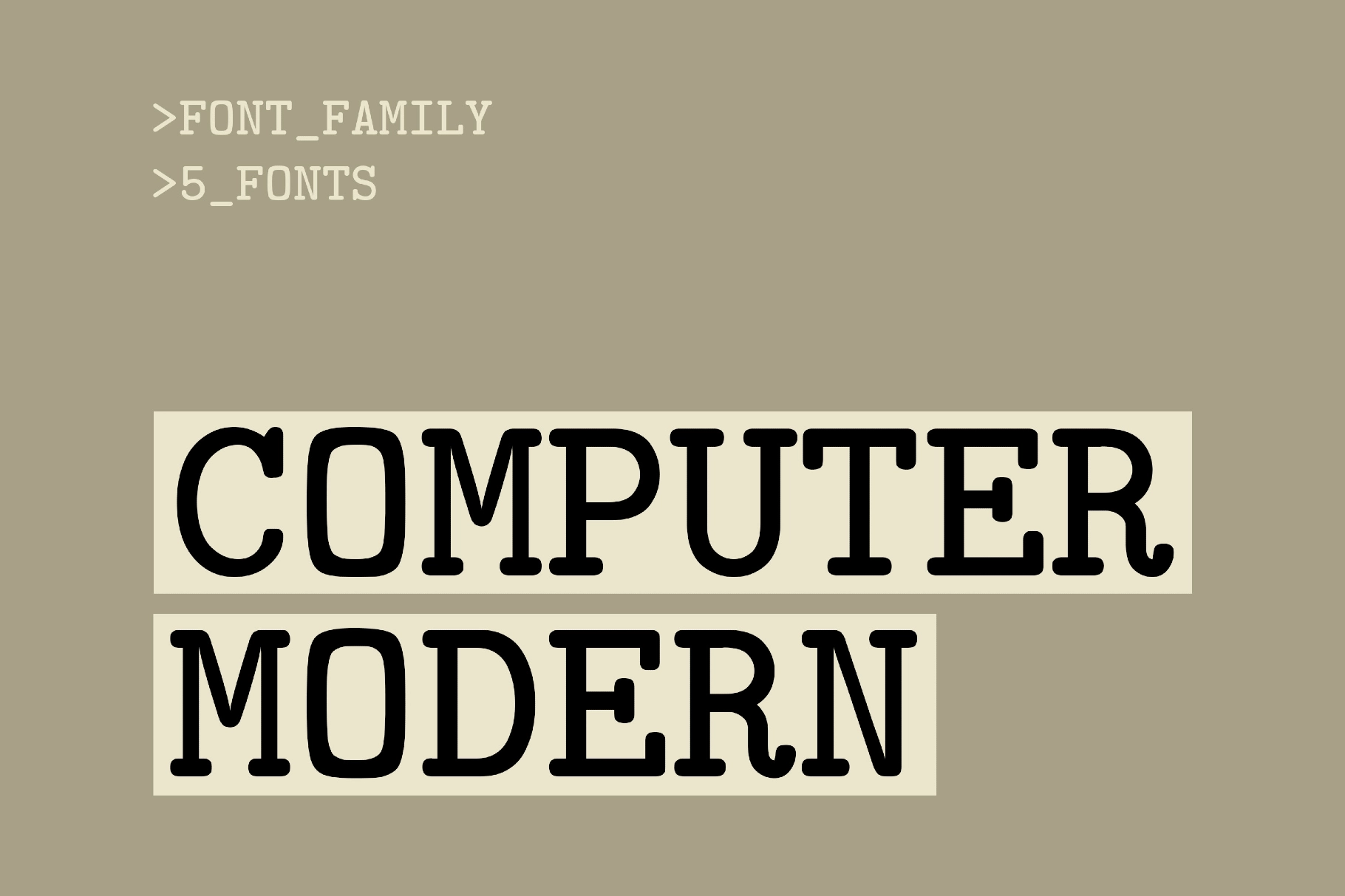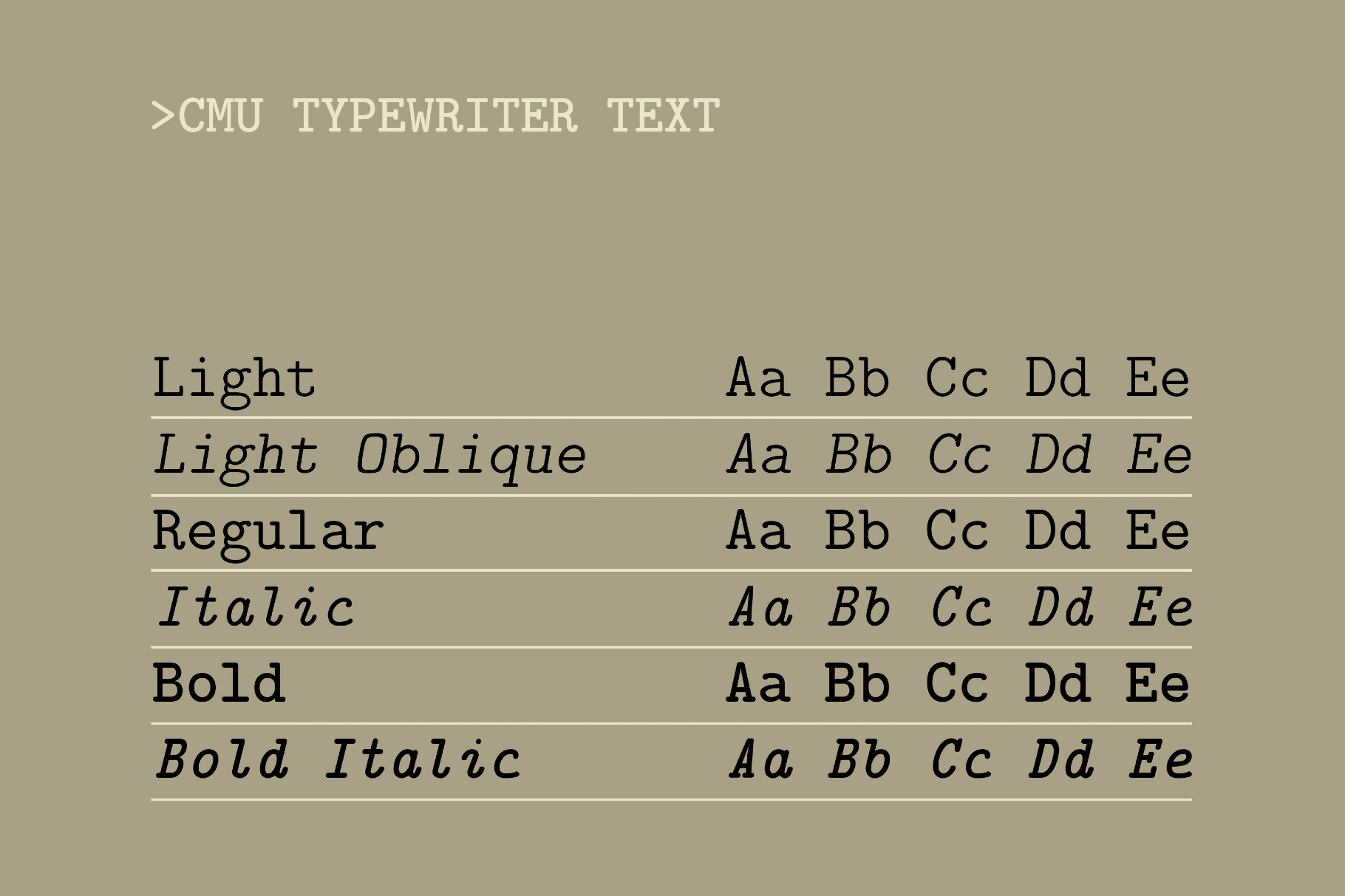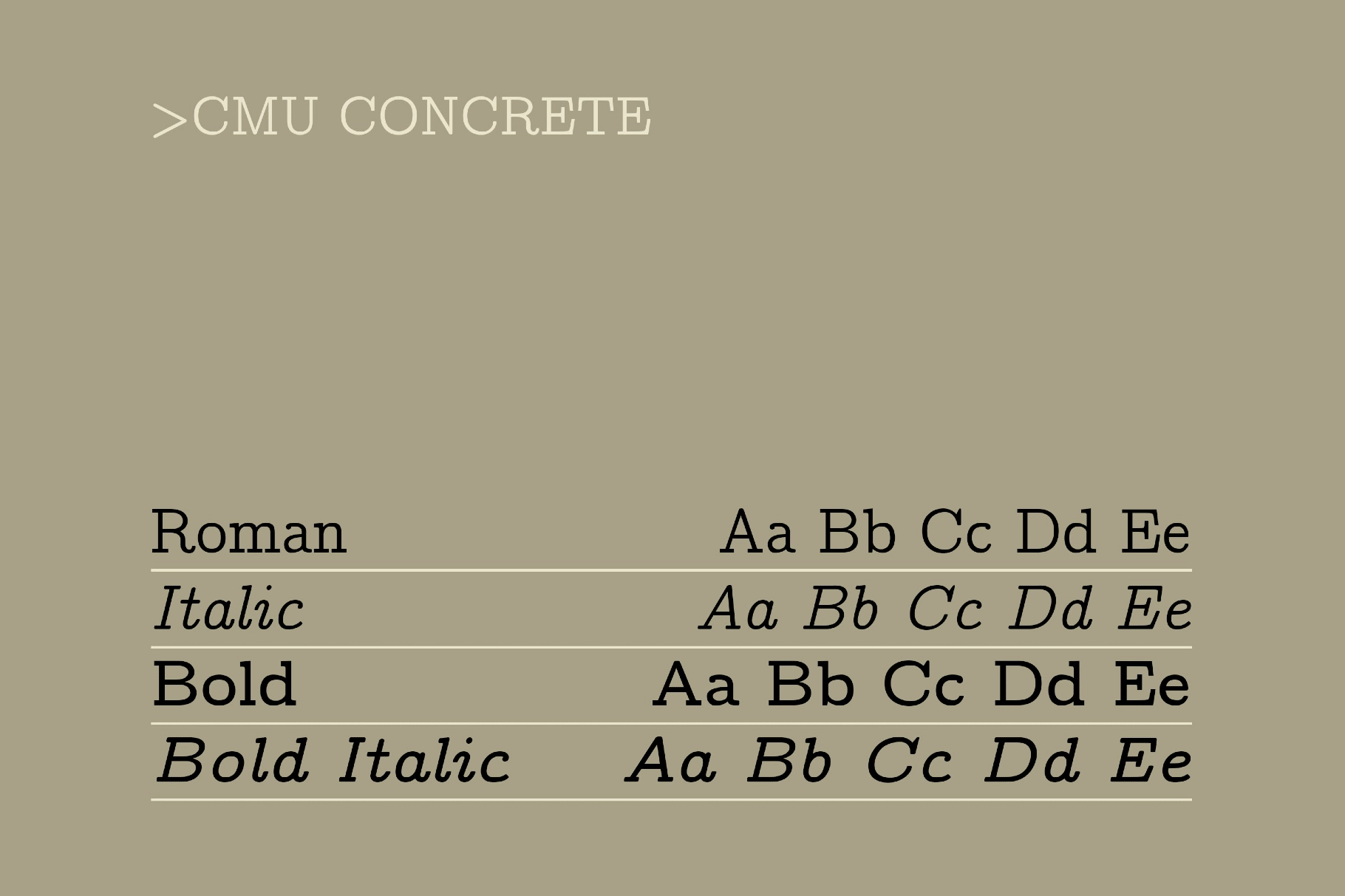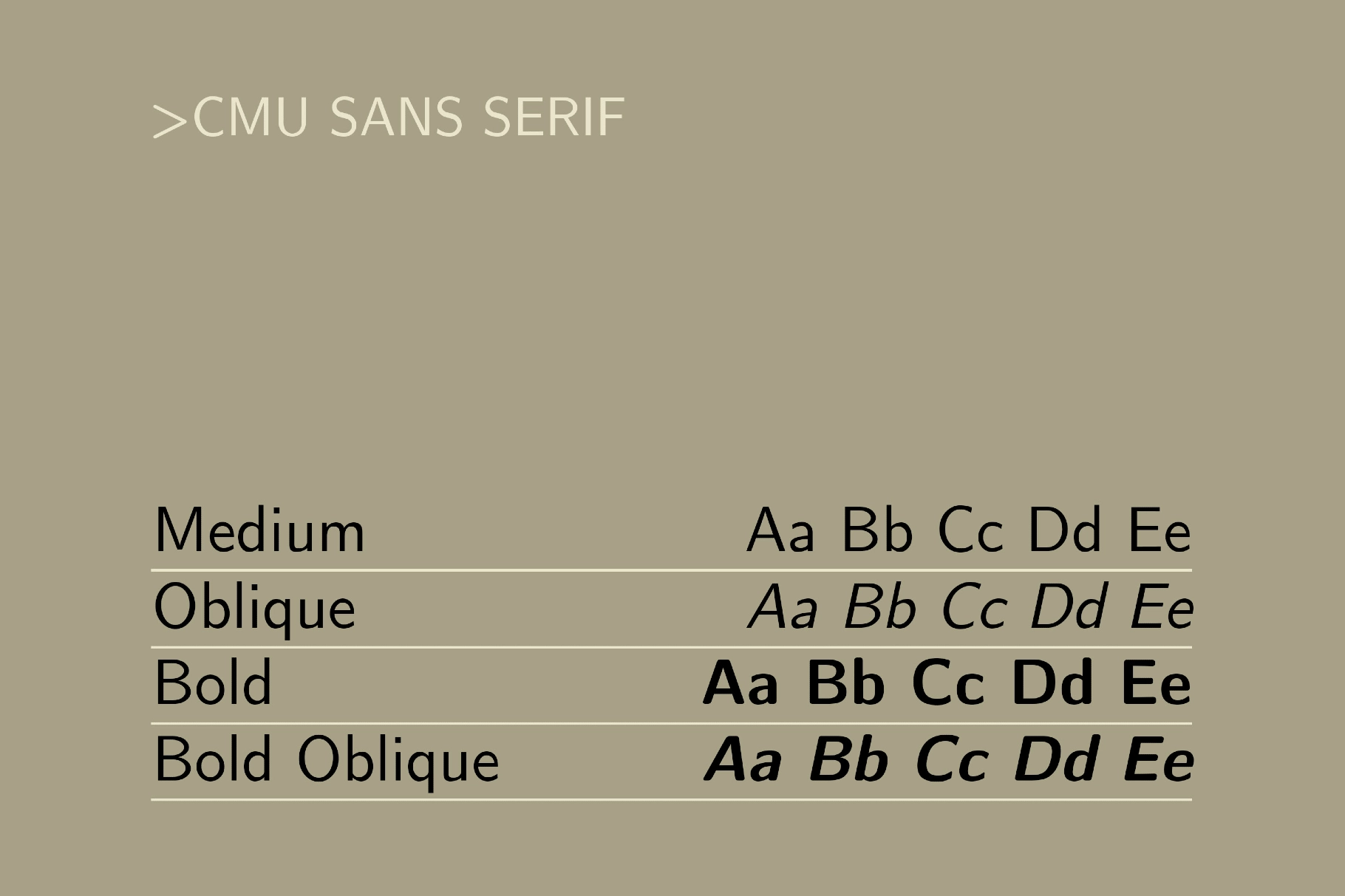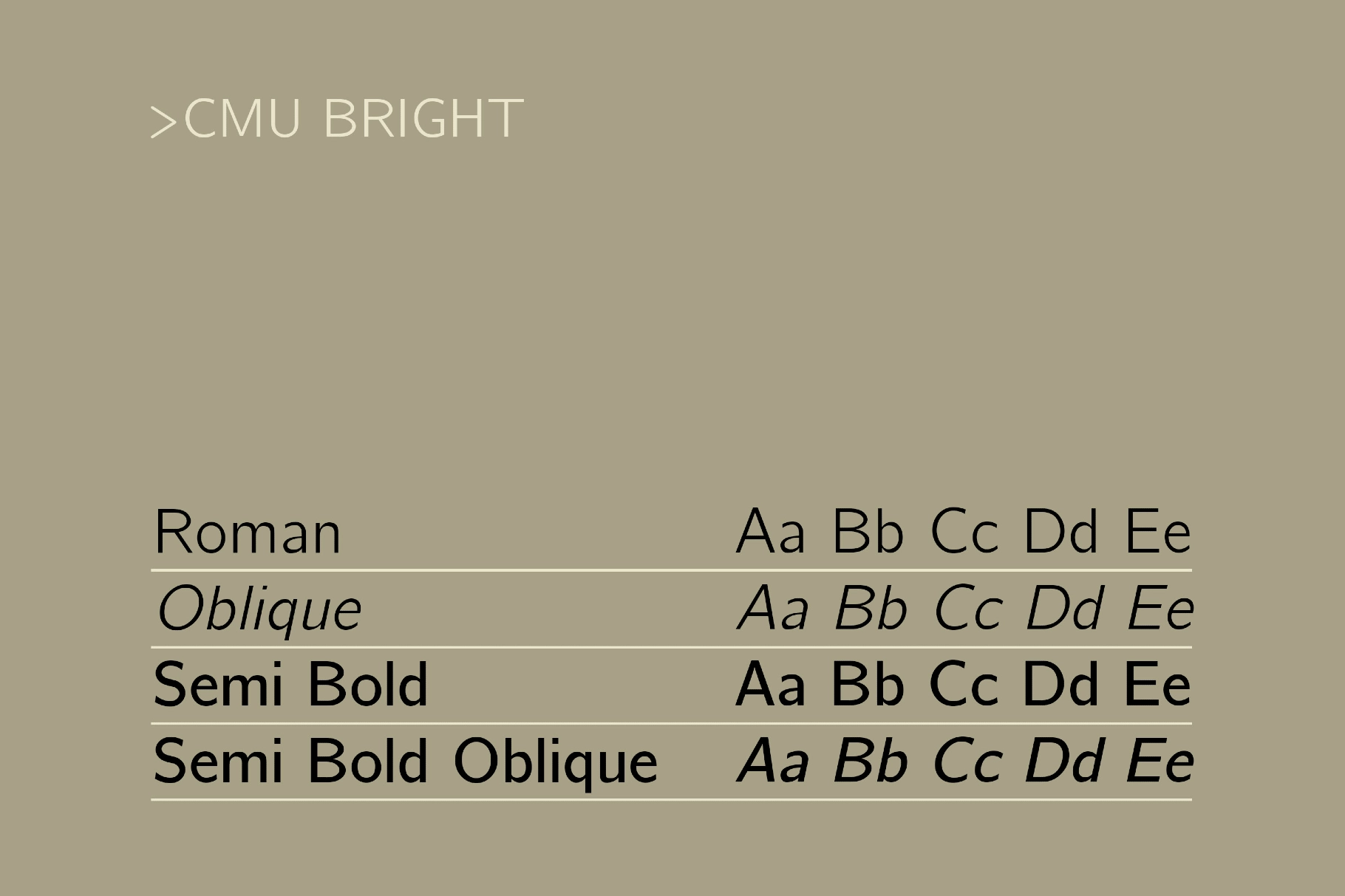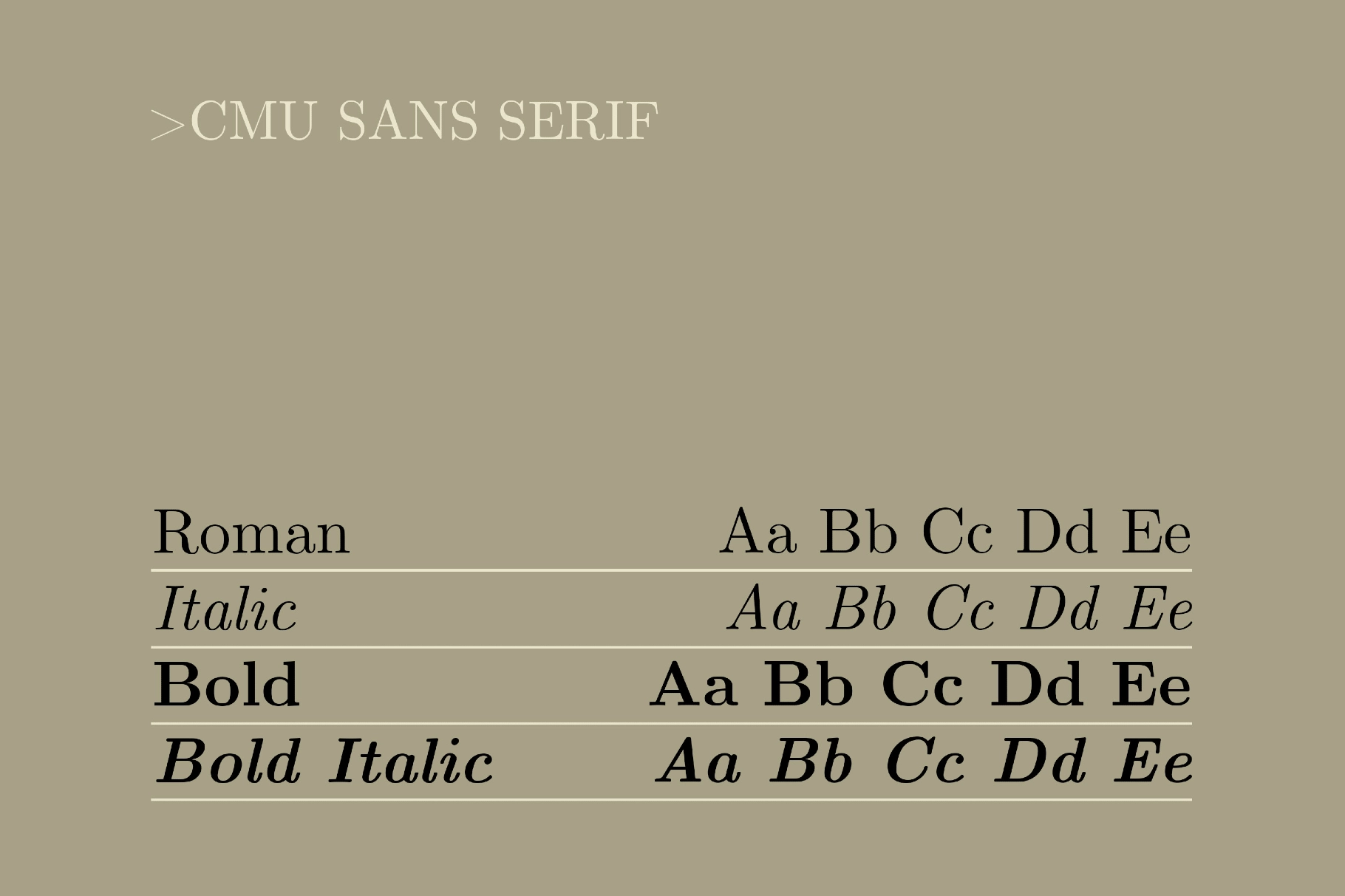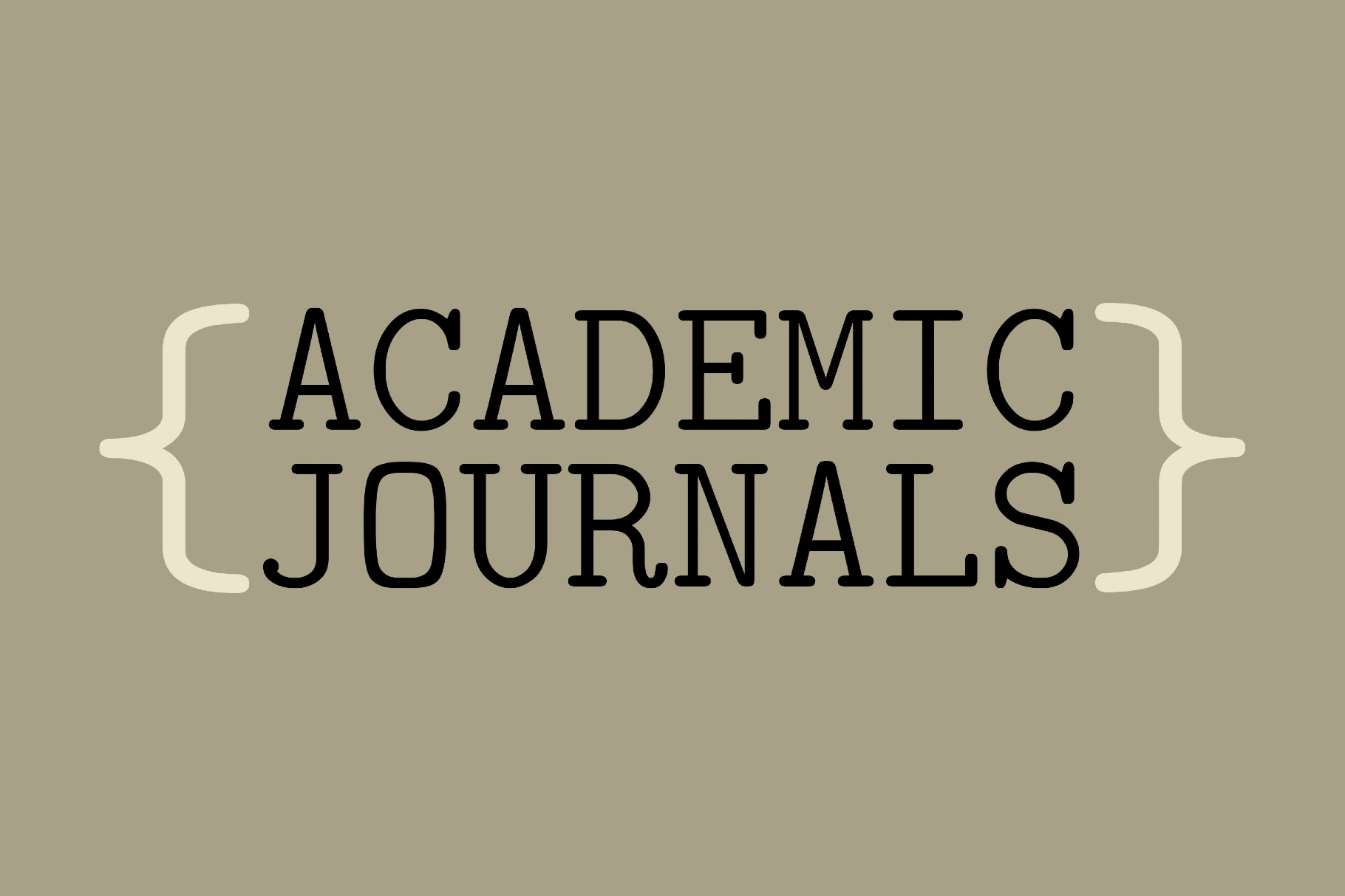
Computer Modern Font Family
Computer Modern balances academic precision with a surprisingly approachable tone. The family combines clean, low-contrast strokes, open counters, and slightly tapered terminals that keep long lines of text light and readable. Five incarnations are included — Sans Serif, Serif, Bright, Concrete, and Typewriter Text — each with its own character.
Use it for scientific reports, theses, technical documentation, slides for lectures and conferences, and data-driven infographics. The family also suits in e-books, academic journals, and code listings.
Included: uppercase and lowercase letters, numbers, punctuation and extra symbols, international characters, and extended support for mathematical symbols and metrics, and broad multilingual support across extended Latin, Greek, and extended Cyrillic scripts. Includes five fonts, each with unique weights: Sans Serif, Serif, Bright, and Typewriter Text.